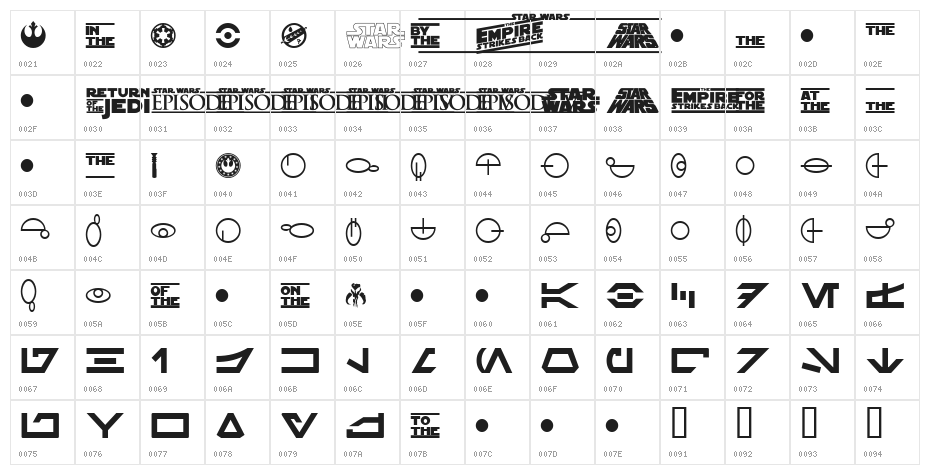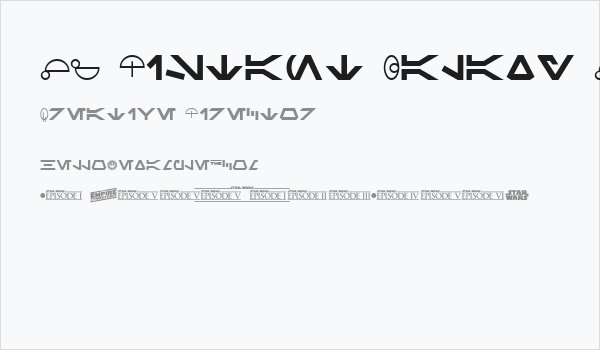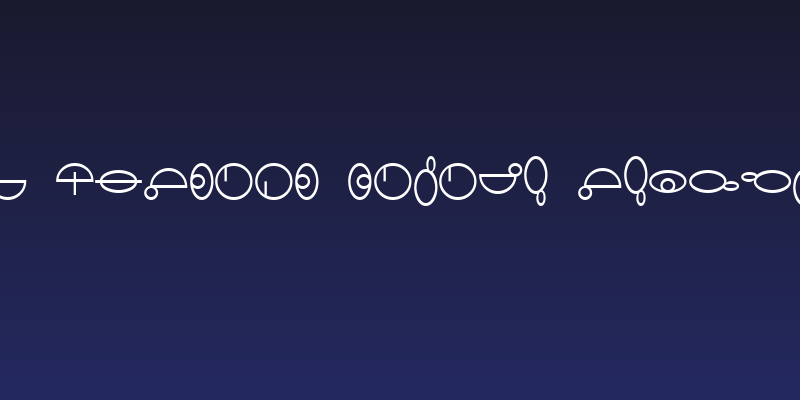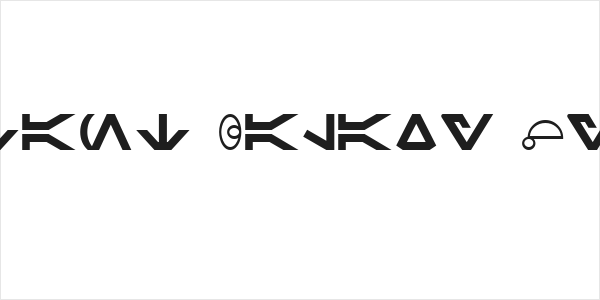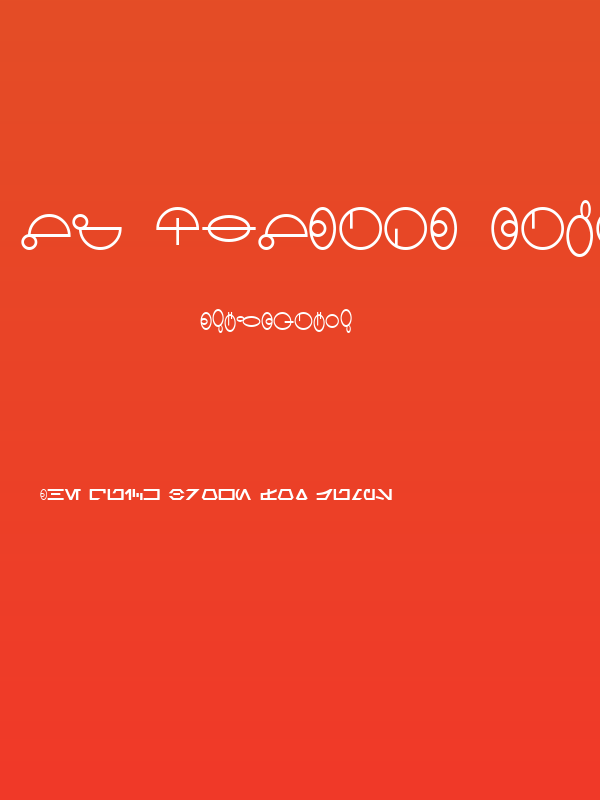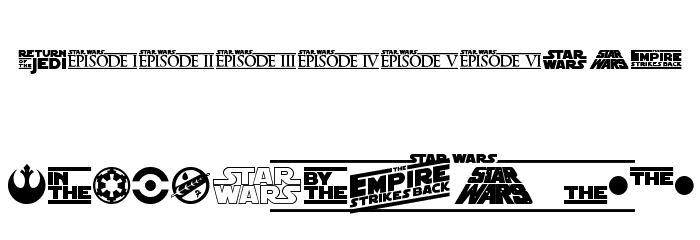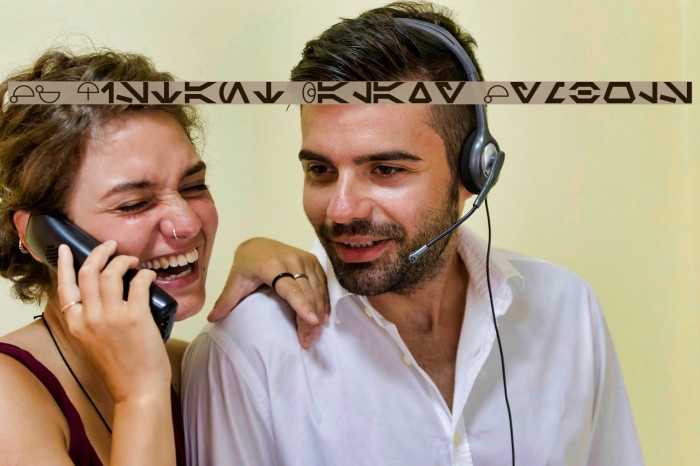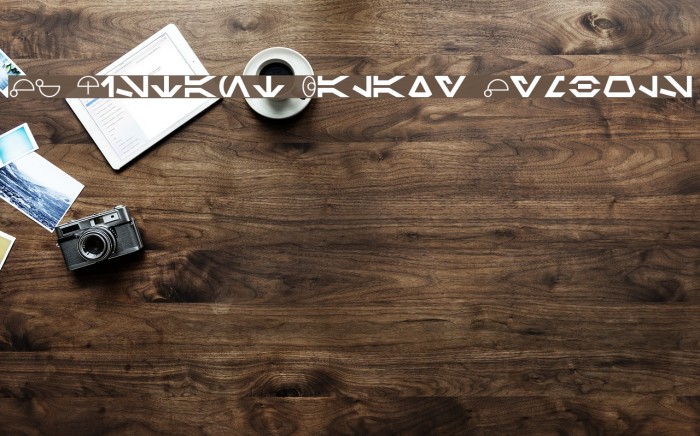
SF Distant Galaxy Symbols Font
SF Distant Galaxy Symbols Description
This font is a decorative and thematic typeface inspired by a distant galaxy theme. It features unique, stylized characters that resemble symbols or glyphs, often associated with science fiction and futuristic settings. The characters are bold and angular, with a distinct geometric design that gives them a modern and otherworldly appearance. The font includes a variety of symbols and logos that are reminiscent of iconic space-themed franchises, adding to its appeal for fans of the genre. The overall style is highly decorative, making it suitable for creative and themed projects.
| Overall Style | Futuristic, Decorative |
| Use Case | Logos, Posters, Themed Events |
| Proposed Projects | Ideal for sci-fi themed posters, fan art, themed party invitations, and any project requiring a futuristic or space-inspired aesthetic. |